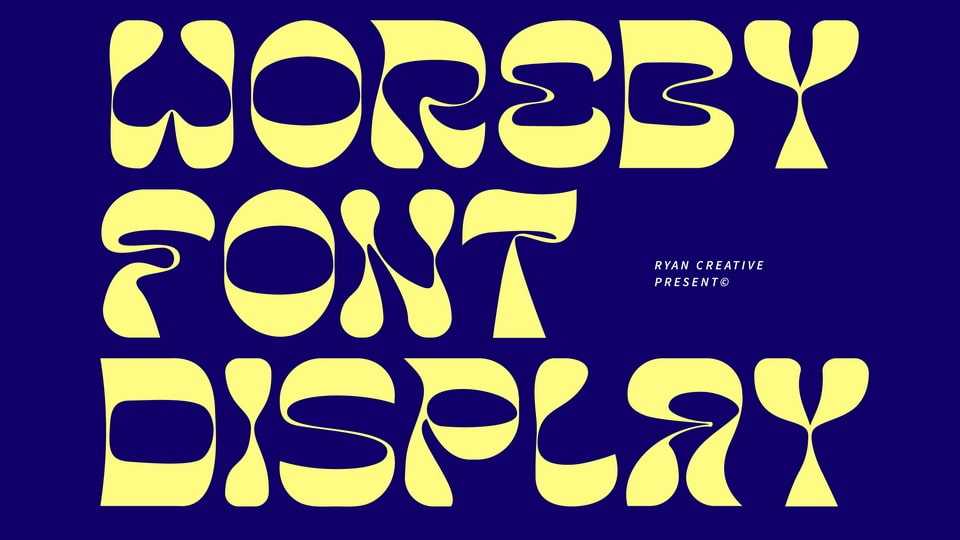
Download Woreby font, a high contrast display typeface that has a unique-looking design. You can use Woreby font in modern and contemporary designs, it is suitable for various media such as stickers, posters, covers, typography, and other digital media.
Designer: Ryan Creative